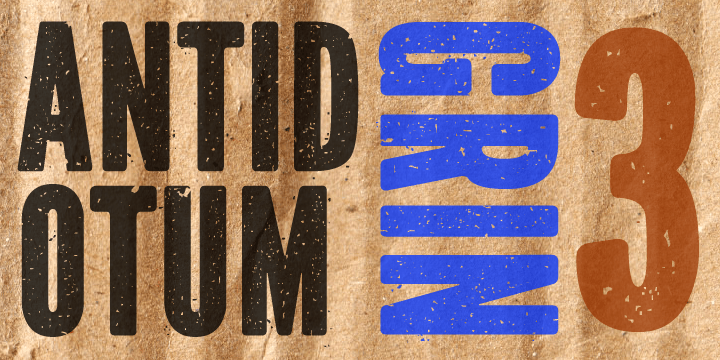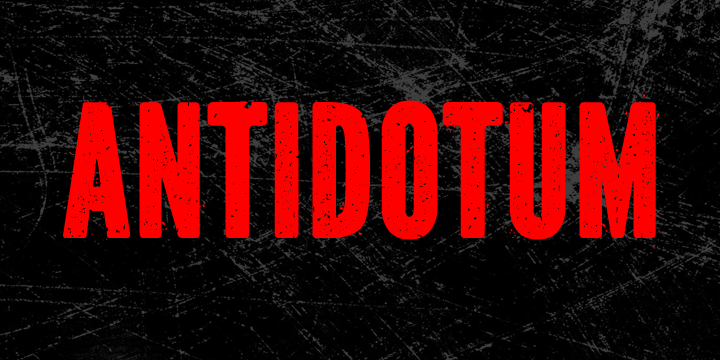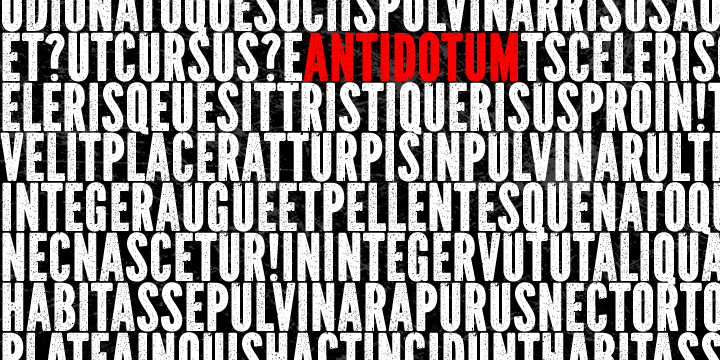
Antidotum
About Antidotum
Antidotum is a hand made, letterpress font with two different sets of capital letters. Language support includes Western, Central and Eastern European character sets, as well as Baltic and Turkish languages.